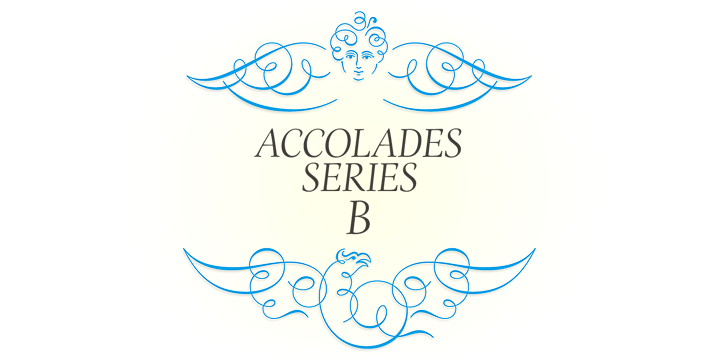
The ASTYPE Ornaments Accolades B Font is ideal for award ceremony programs, recognition certificates, achievement diplomas, prestigious honor society materials, excellence award designs, corporate recognition campaigns, academic achievement documents, and distinguished merit announcements. This celebratory typeface excels in applications where recognition and acclaim need to be emphasized, making it perfect for institutions that want to communicate achievement excellence and professional acknowledgment through ornamental, award-worthy typography.
What makes ASTYPE Ornaments Accolades B Font exciting is its distinguished honor and ceremonial elegance that captures the essence of achievement recognition and professional acclaim. The font's ornamental letterforms and accolade-inspired design create an atmosphere of prestigious acknowledgment and distinguished merit, making it ideal for organizations that want to celebrate excellence and honor outstanding achievements with visual sophistication. Its ceremonial presence ensures that every application feels worthy of recognition with genuine prestige and institutional credibility.
The ASTYPE Ornaments Accolades B Font family typically includes decorative weights and ornamental variations, often featuring award symbols, achievement ribbons, and ceremonial elements that enhance its recognition appeal. Many versions include honor badges, merit indicators, and specialized characters that provide designers with comprehensive tools for creating authentic achievement-focused design projects with genuine institutional sophistication and ceremonial excellence.
For designers working on projects that require institutional authenticity and achievement credibility, ASTYPE Ornaments Accolades B Font Free Download delivers exceptional recognition appeal. Its ability to instantly communicate honor and professional merit makes it an invaluable choice for educational institutions, corporate organizations, and any project requiring typography that embodies the dignity of achievement recognition, the prestige of professional excellence, and the ceremonial beauty of distinguished honor and institutional acknowledgment.